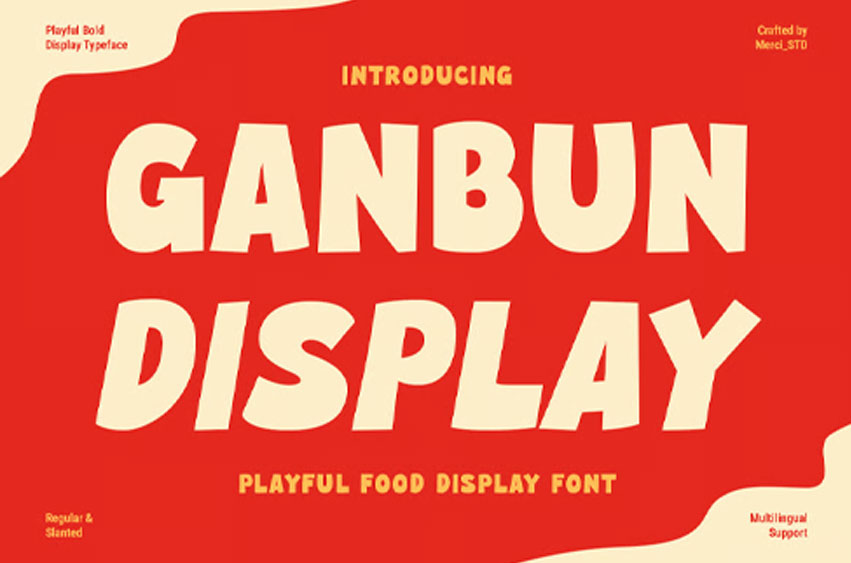
Ganbun Display Font
Ganbun Display Font is a playful bold display font with a fun and energetic personality. Featuring chunky shapes and soft curves, this font is perfect for food branding, menu titles, kids projects, playful packaging, posters, logos, and cheerful visual identities.
Ganbun brings a friendly and eye-catching style to every design.
• Uppercase Letters
• Ligature & Alternate Character
• Unique Hand-Drawn Style